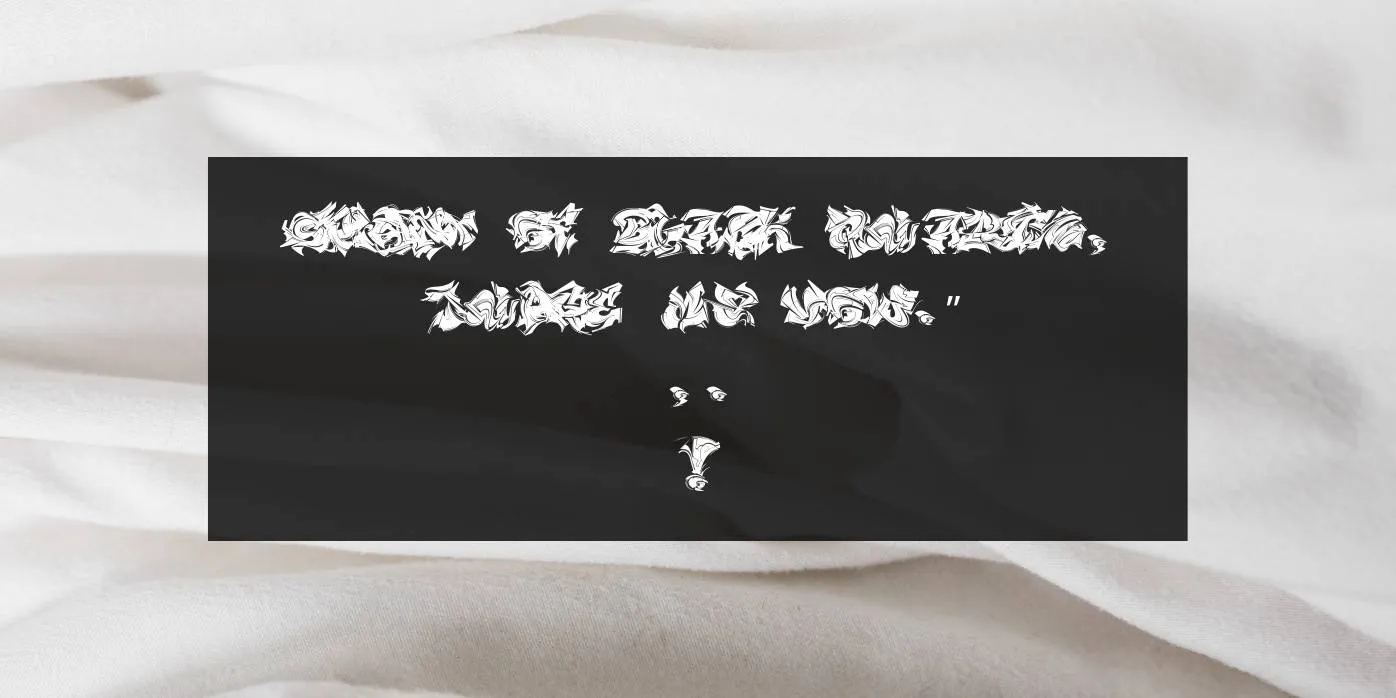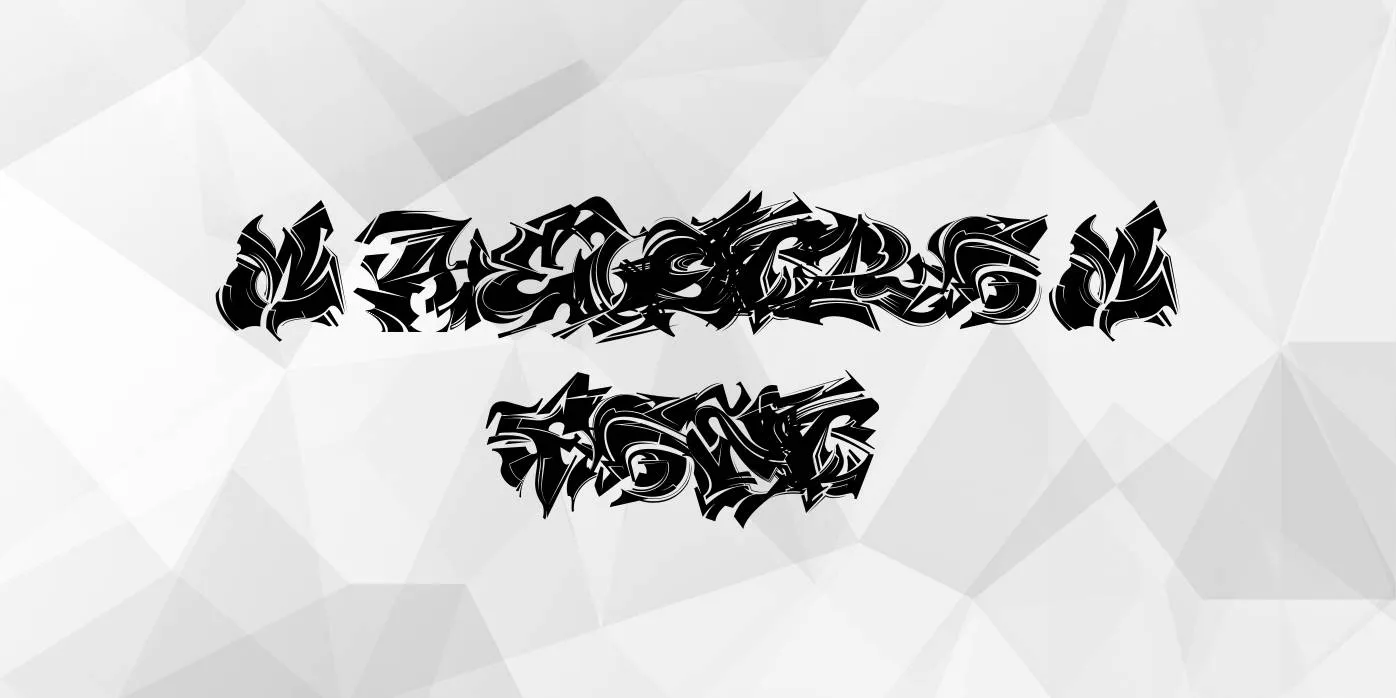
Maelstrom Font
In this post, we introduce Maelstrom Font which was developed and shared by Chung-Deh Tien. It is a fancy font. It takes inspiration from various classic fonts, and it adds a modern touch to them. This amazing font family consists of Regular, Bold, Italic, and Bold Italic weights.
This typeface consists of various styles like Rounded, Sharp, and Decorated. It is perfect for headlines, branding, packaging, and other creative uses. Maelstrom is a great choice for those who are looking for a unique and stylish font. Its copy and paste function is perfect for many plans.